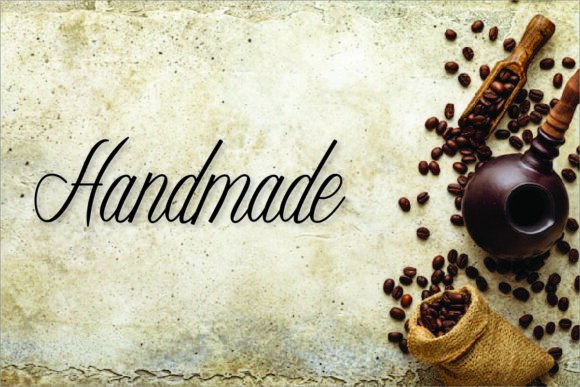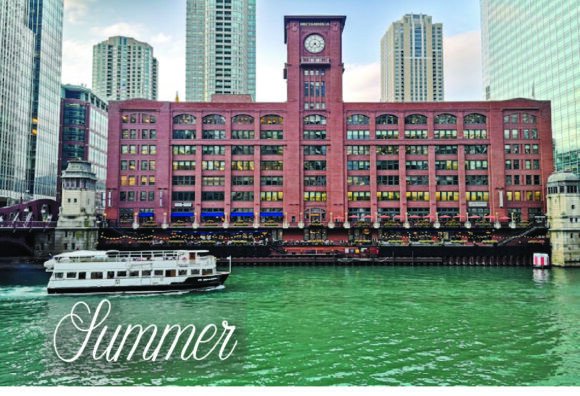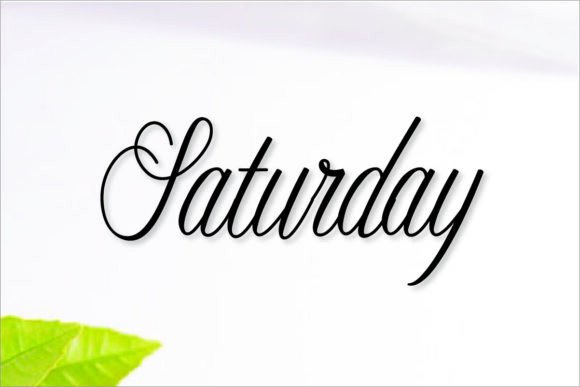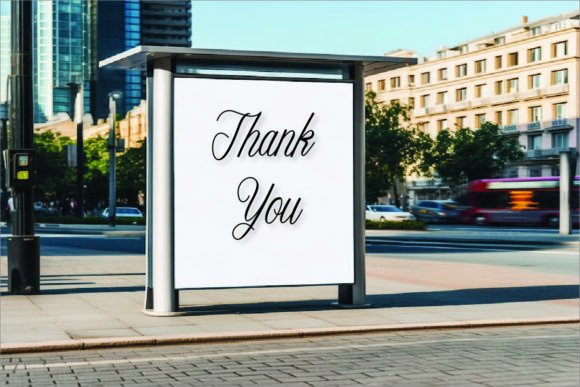
Introduction to Baby Chicken Font
Baby Chicken is a sweet and cursive handwritten font.
This gentle font will look gorgeous on a variety of design ideas It will add a joyful and romantic touch to each of your projects.
Key Features of Baby Chicken Font
Why Choose Baby Chicken Font?
Baby Chicken Font offers exceptional quality and versatility, making it a valuable addition to your design toolkit. Whether you’re creating for personal projects or commercial use, Baby Chicken Font delivers professional results.